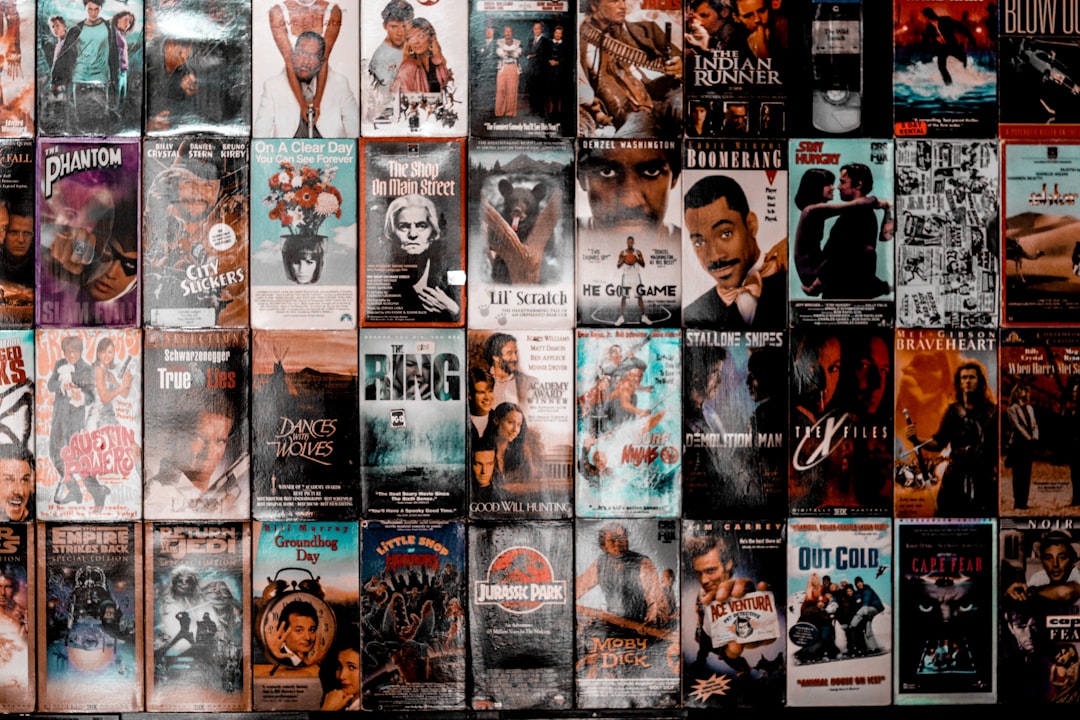
Best Fonts for Movie Titles and Posters
Quick answerThe best fonts for movie titles are Trajan, the paid Roman-capitals serif behind decades of film posters, and Cinzel, its free Google Fonts equivalent. For modern and action posters, Bebas Neue, Anton and Oswald deliver tall, condensed impact, while the paid Steelfish gives a tighter blockbuster look. Match the typeface to the genre, then make sure the title and billing block read at any size.
The best fonts for movie titles carry an entire genre and mood in a single line of type, from the inscriptional gravitas of an epic to the tight condensed energy of an action thriller. That rewards strong display faces and punishes anything generic. Below are real typefaces — a mix of free Google Fonts and the famous paid classics — chosen by genre and built for posters, key art and streaming thumbnails alike.
What makes a good font for movie titles?
A movie title font has to do a lot of work in a few letters: establish genre, convey scale and prestige, and stay legible everywhere from a cinema lobby to a phone thumbnail. The best cinematic faces have strong, confident letterforms, a tone matched to the film, and enough weight or presence to anchor key art. Because the title is short, you can use dramatic display faces that body text could never sustain.
Genre drives the choice. Epics and prestige dramas use inscriptional Roman capitals; action and sci-fi lean on tall condensed sans; horror often distorts or distresses custom letterforms. Pick one face for the title and keep the billing block in a clean, narrow sans. Our font pairing guide shows how to combine a statement title with quieter support type.
Best movie title fonts
Trajan — paid (Adobe)
Trajan is the most famous movie title font in history, modelled on the carved capitals of Rome’s Trajan Column. From prestige dramas to epics to thrillers, its authority and elegance made it the default for decades of posters. It is a paid Adobe face, which is why so many designers reach for a free stand-in.
Cinzel — free (Google Fonts)
Cinzel is the go-to free alternative to Trajan, built on the same classical Roman inscriptional model. Its monumental capitals deliver the cinematic, prestige feel of Trajan at no cost, making it the practical choice for indie posters, fan art and title cards.
Bebas Neue — free (Google Fonts / Canva)
Bebas Neue is a tall, all-caps condensed sans that defines the modern action and thriller poster. It stacks into tight, urgent blocks and stays sharp at any size, which is why it appears across countless contemporary one-sheets and streaming banners.
Anton — free (Google Fonts / Canva)
Anton is a single ultra-bold condensed weight that dominates the frame. When a title needs maximum weight and presence — blockbusters, comedies, big genre films — Anton delivers heavyweight impact with no fuss.
Oswald — free (Google Fonts / Canva)
Oswald is a condensed gothic that reworks the classic newspaper headline for screens. It is slightly more refined than Anton, giving dramas, documentaries and thrillers a tall, punchy title block that reads cleanly in a billing layout.
Steelfish — paid (Typodermic)
Steelfish is a tighter, more aggressive condensed sans favoured for blockbuster and action key art. Its narrow, heavy build packs long titles into a single dramatic line. It is a paid Typodermic font; Bebas Neue and Oswald are the closest free relatives.
Cormorant — free (Google Fonts)
Cormorant is a high-contrast display serif for period dramas, romances and art-house films that want elegance over impact. Its tall, graceful capitals suit refined, character-driven posters. Use it large so the fine strokes survive.
Archivo Black — free (Google Fonts)
Archivo Black is a heavy grotesque sans with a wide, modern build. It suits contemporary comedies, indies and documentaries that want bold weight without the condensed, action-movie look. It pairs well with a lighter sans for the credits block.
Movie title fonts comparison table
Font Style Free/Paid Why it works
Trajan Inscriptional capitals Paid The classic film-poster serif
Cinzel Roman-capitals serif Free Free Trajan-style prestige
Bebas Neue Condensed caps Free Modern action and thriller blocks
Anton Ultra-bold condensed Free Maximum weight and presence
Oswald Condensed gothic Free Refined, punchy billing titles
Steelfish Tight condensed sans Paid Aggressive blockbuster key art
Cormorant Display serif Free Period drama and art-house elegance
Archivo Black Heavy grotesque sans Free Modern comedy and indie weight
Matching fonts to film genre
Type is the fastest genre signal a poster has. Epics, dramas and prestige films use inscriptional Roman capitals — Trajan or its free twin Cinzel — for gravitas. Action, thriller and sci-fi reach for tall condensed sans like Bebas Neue, Anton, Oswald and Steelfish. Period dramas and romances favour elegant serifs such as Cormorant. Horror typically uses custom, distressed or distorted lettering rather than a stock font. Trajan’s enduring legacy is no accident — its carved capitals read as serious and timeless, which is exactly what most prestige posters want to project.
What font is used for the credits block on movie posters?
The billing block at the bottom of a poster traditionally uses an extremely tall, narrow condensed sans, often a face like SteelTongs or a custom condensed type. For a free approximation, designers use Bebas Neue or a heavily condensed weight set very small with tight spacing.